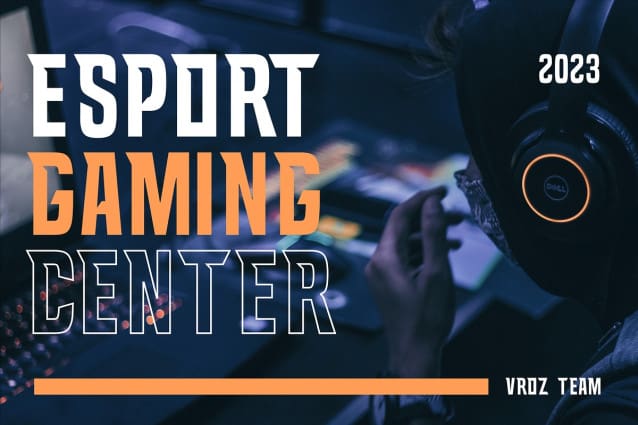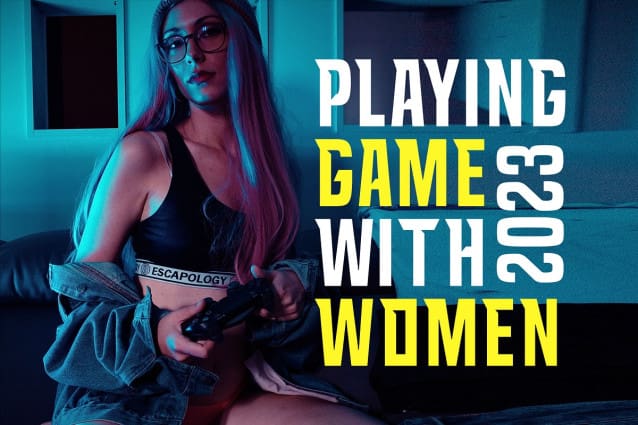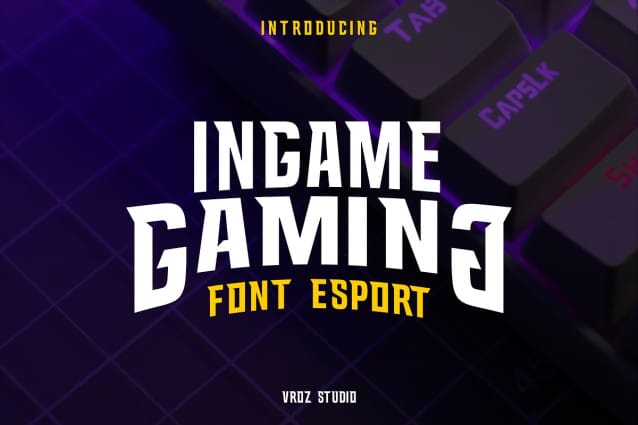
Ingame Sporty Font
Ingame Sporty Font is a sports font. It gives you a fun and sporty feeling, spreading joyful energy to the game. The ingame font will be suitable for any type of sports product such as team names, posters, jersey designs, sports slogans and many other sports or esports products.